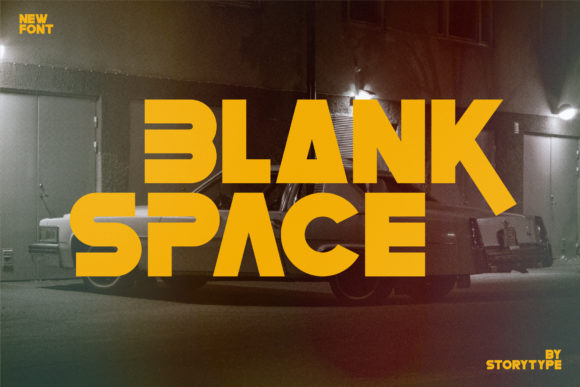
Calling all Christmas design enthusiasts! Get ready to deck your digital halls with the enchanting Blank Space Font, the perfect font family for adding a festive flair to your seasonal creations. Crafted by the talented artisans of Storytype Studio, this stunning display font boasts a bold and captivating look that is sure to make your designs stand out from the crowd.
Unleash your creativity with Blank Space's effortless PUA encoding, granting you seamless access to a world of glyphs and swashes that will transform your designs into true works of art. Each letterform exudes strength, confidence, and dynamism, ready to inject your designs with a splash of holiday cheer.
Blank Space is more than just a font; it's a design powerhouse that will empower you to create eye-catching greeting cards, social media posts, website banners, and any other Christmas-themed project you can dream up. Its versatility knows no bounds, making it the perfect choice for both personal and professional use.